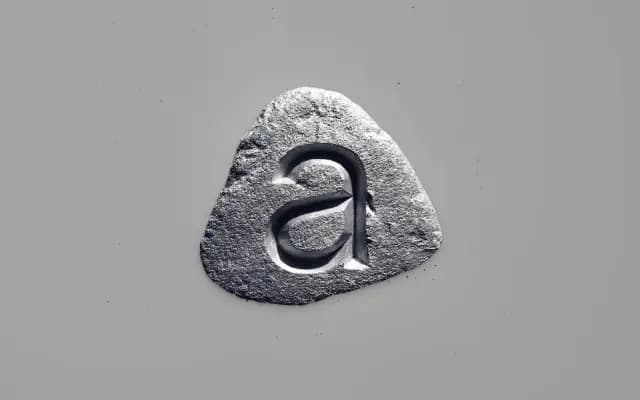
Antra
Güneş Muhittin · Muhittin Güneş · 2025
A neo-grotesque by Muhittin Güneş with horizontal terminals and measured contrast, positioned to work across both headline and text roles in design systems.
Antra takes Akzidenz-Grotesk as its historical reference point and updates the form for contemporary digital environments. Horizontal terminals and carefully controlled contrast give it a structural reliability that allows it to operate quietly at text sizes or assertively at display scale. The family spans nine weights from Thin to Black, each with a matching italic, totalling 18 cuts.
Explicitly classified as Neo-Grotesk by the designer, drawing from the mid-century tradition of Akzidenz-Grotesk with horizontal terminals and restrained contrast typical of rational grotesque designs.